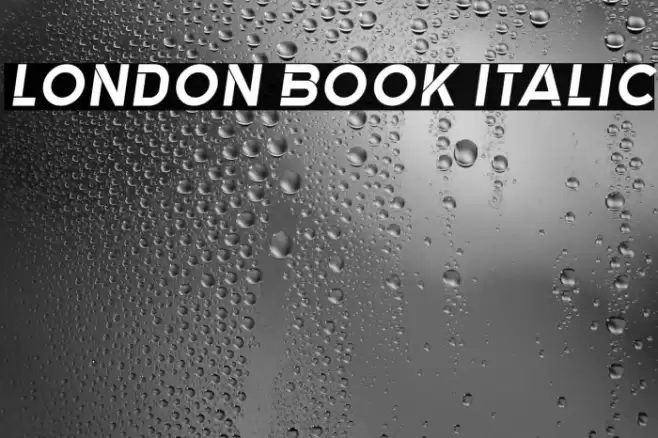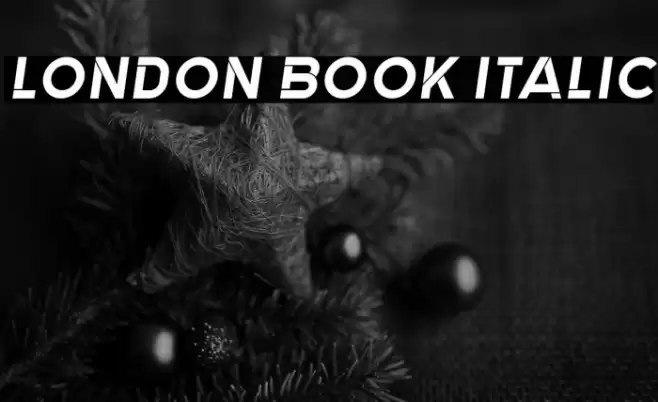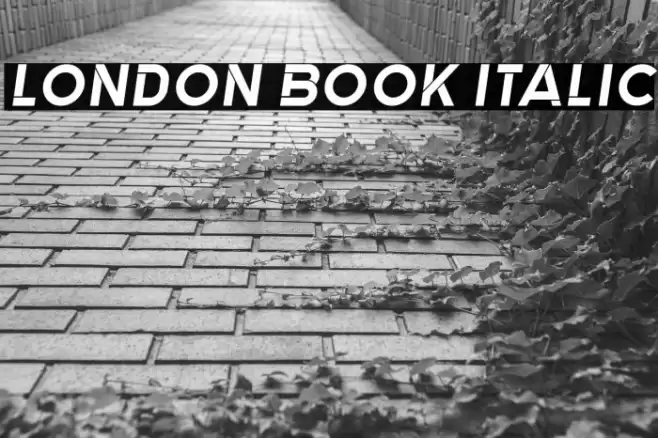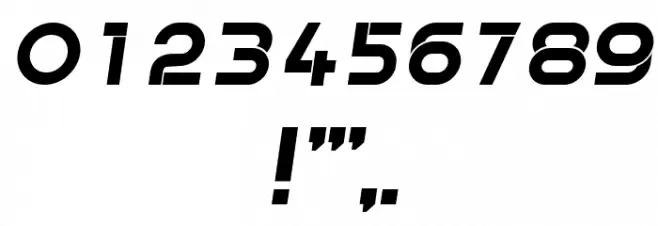
London Book Italic Font
London Book Italic Description
This font features a modern, italicized style with a distinct geometric influence. The characters are bold and slightly condensed, with sharp angles and clean lines that give it a futuristic appearance. The uppercase letters are particularly striking, with unique cuts and slants that add a dynamic feel. The lowercase letters maintain the same angular style, ensuring consistency across the typeface. Numbers and special characters are designed to match the overall aesthetic, making this font versatile for various applications. The italic slant adds a sense of motion and elegance, making it suitable for contemporary designs.
A bold, geometric italic font with a modern and dynamic style from Uncategorized fonts.
- Font: London Book Italic
- Proposed Projects: Ideal for branding, advertising, and editorial design projects that require a modern and bold aesthetic.
- Use Case: Headlines, Logos, Branding